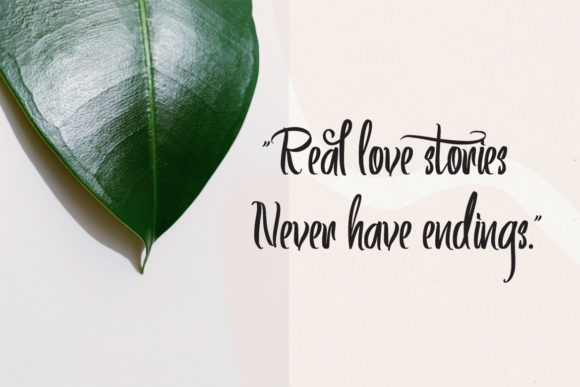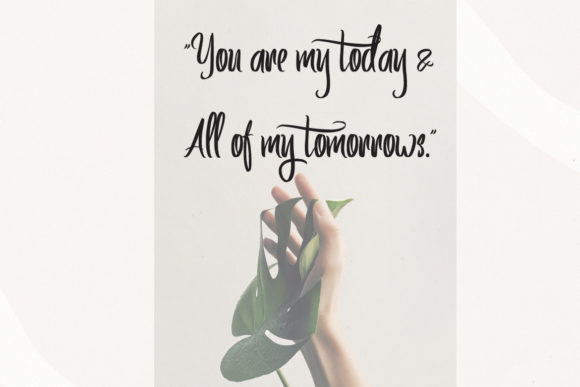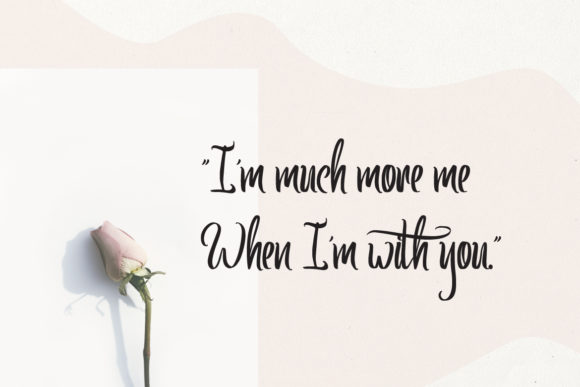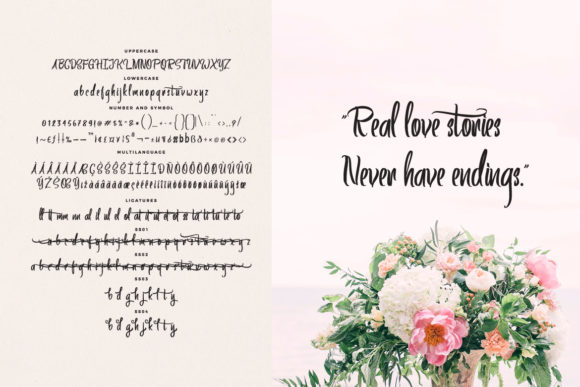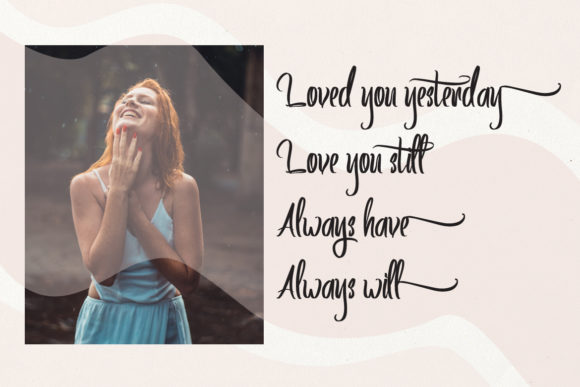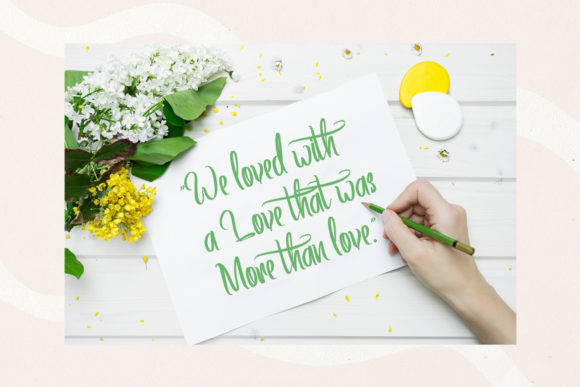
Discover the Coolness of Artics Snow Font: A Modern Script Font for Creative Minds
Are you a designer, crafter, or simply someone who appreciates beautiful typography? Look no further than Artics Snow Font, a friendly and modern script font that’s taking the creative world by storm. With its unique style and contemporary coolness, Artics Snow is the perfect addition to any project that needs a touch of elegance and sophistication.
What Makes Artics Snow Font So Special?
Artics Snow Font is more than just a font – it’s an experience. Its modern script style is both fresh and timeless, making it perfect for a wide range of applications, from branding and advertising to crafting and DIY projects. The font’s unique character is designed to add a touch of personality to any project, making it stand out from the crowd.
One of the key features that sets Artics Snow apart from other fonts is its friendly and approachable feel. The font’s curves and lines are smooth and flowing, giving it a natural and effortless look that’s hard to resist. Whether you’re creating a logo, a poster, or a handmade craft, Artics Snow Font is sure to bring a smile to your face and inspire your creativity.
The Benefits of Using Artics Snow Font
So why choose Artics Snow Font for your next project? Here are just a few benefits of using this amazing font:
- Unique Style: Artics Snow Font has a one-of-a-kind style that’s sure to make your project stand out from the crowd.
- Modern and Fresh: The font’s modern script style is perfect for projects that need a fresh and contemporary look.
- Easy to Read: Despite its unique style, Artics Snow Font is easy to read and understand, making it perfect for body text and headlines.
- Versatile: Artics Snow Font can be used for a wide range of applications, from digital projects to handmade crafts.
How to Use Artics Snow Font in Your Projects
Using Artics Snow Font in your projects is easy. Here are a few tips to get you started:
- Pair it with Other Fonts: Artics Snow Font pairs well with other fonts, so don’t be afraid to experiment with different combinations.
- Use it for Headlines: The font’s unique style makes it perfect for headlines and titles.
- Add it to Your Crafts: Artics Snow Font is perfect for handmade crafts, such as scrapbooking, card making, and journaling.
- Experiment with Colors: The font looks great in a variety of colors, so don’t be afraid to experiment and find the perfect hue for your project.
Get Inspired by Artics Snow Font
Artics Snow Font is more than just a font – it’s a source of inspiration. Its unique style and modern coolness are sure to spark your creativity and inspire you to create something amazing. Whether you’re a designer, crafter, or simply someone who appreciates beautiful typography, Artics Snow Font is the perfect addition to your creative toolkit.
| Font Name | Artics Snow Font |
| Author | feydesign |
In conclusion, Artics Snow Font is a friendly and modern script font that’s perfect for designers, crafters, and anyone who appreciates beautiful typography. Its unique style and contemporary coolness make it a must-have for any project that needs a touch of elegance and sophistication. So why wait? Get inspired by Artics Snow Font today and take your creative projects to the next level.